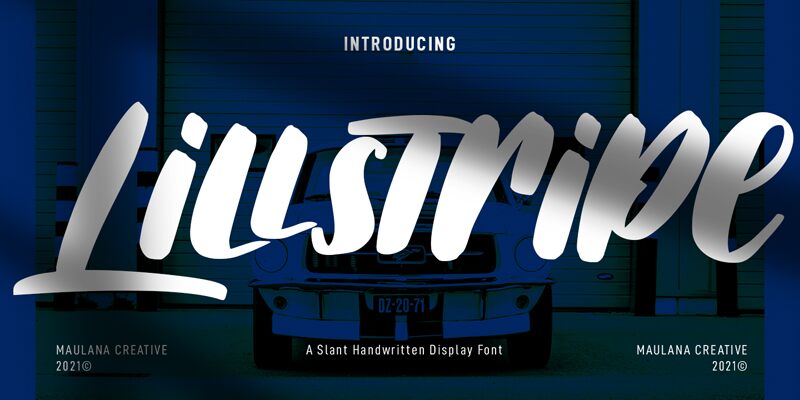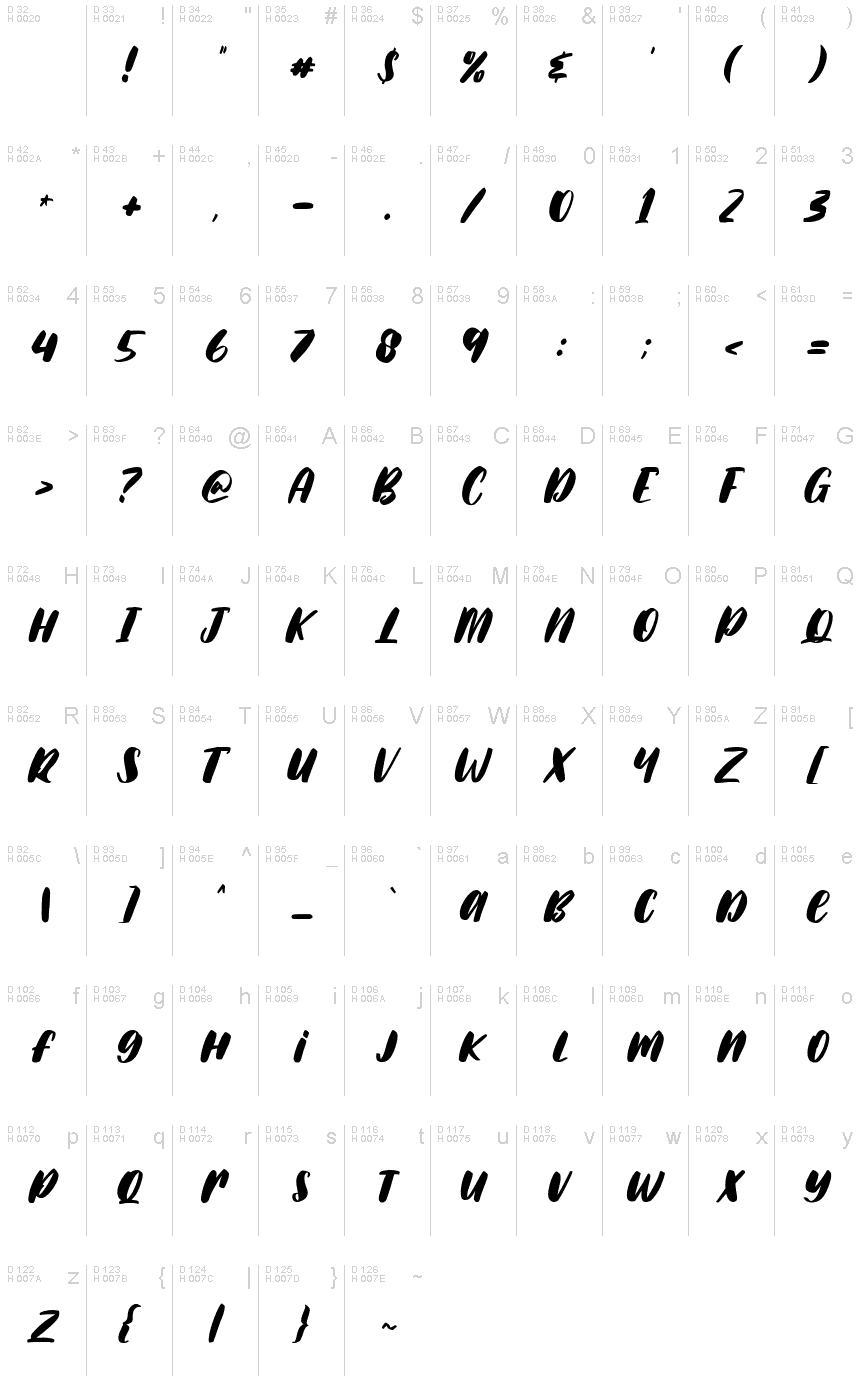
This bold and narrow brush font, Lillstripe, designed by Maulana Creative is the perfect choice for any creative project. It's great for logos, headlines, posters, album covers and more. Its unique brush style adds a touch of personality to any design.
Lillstripe